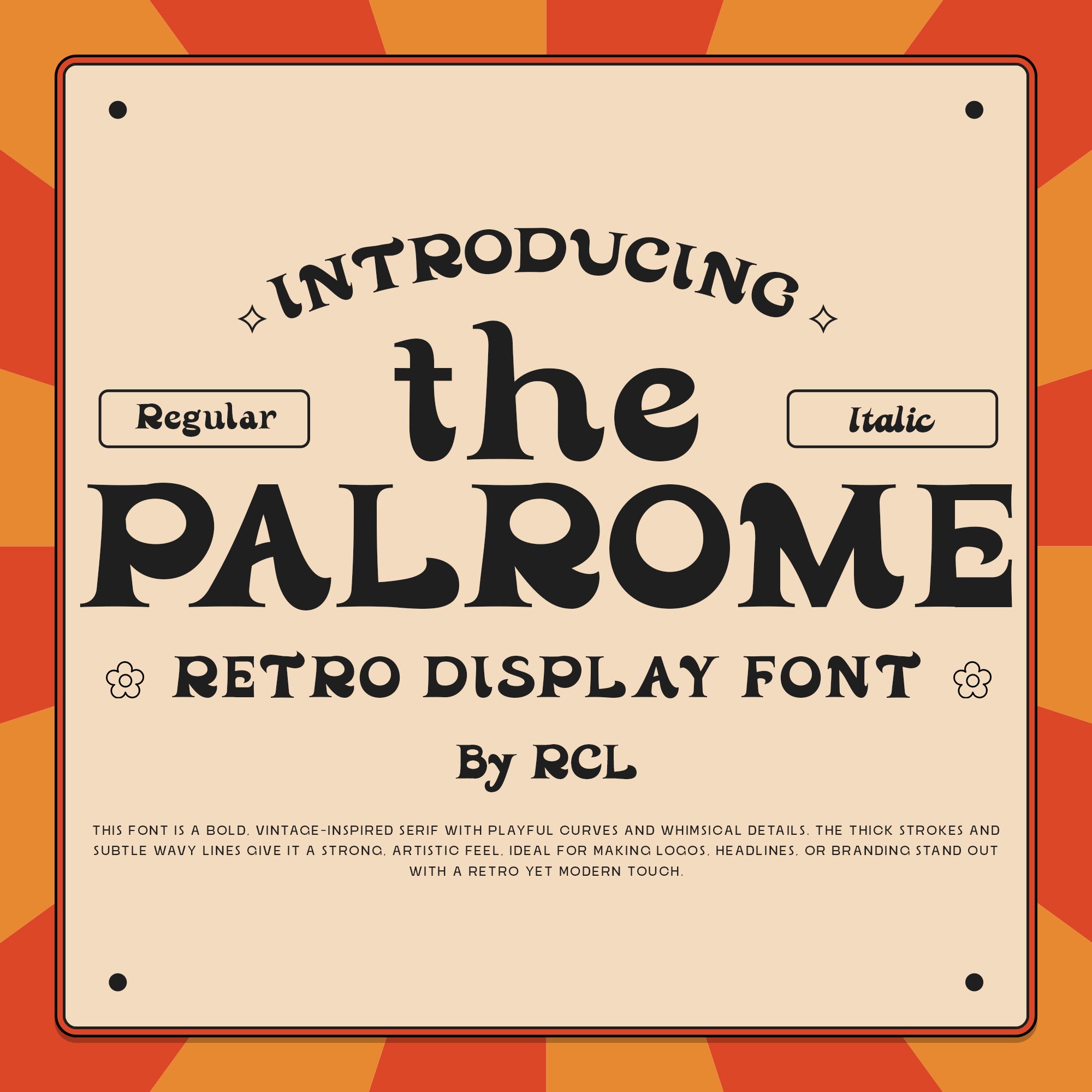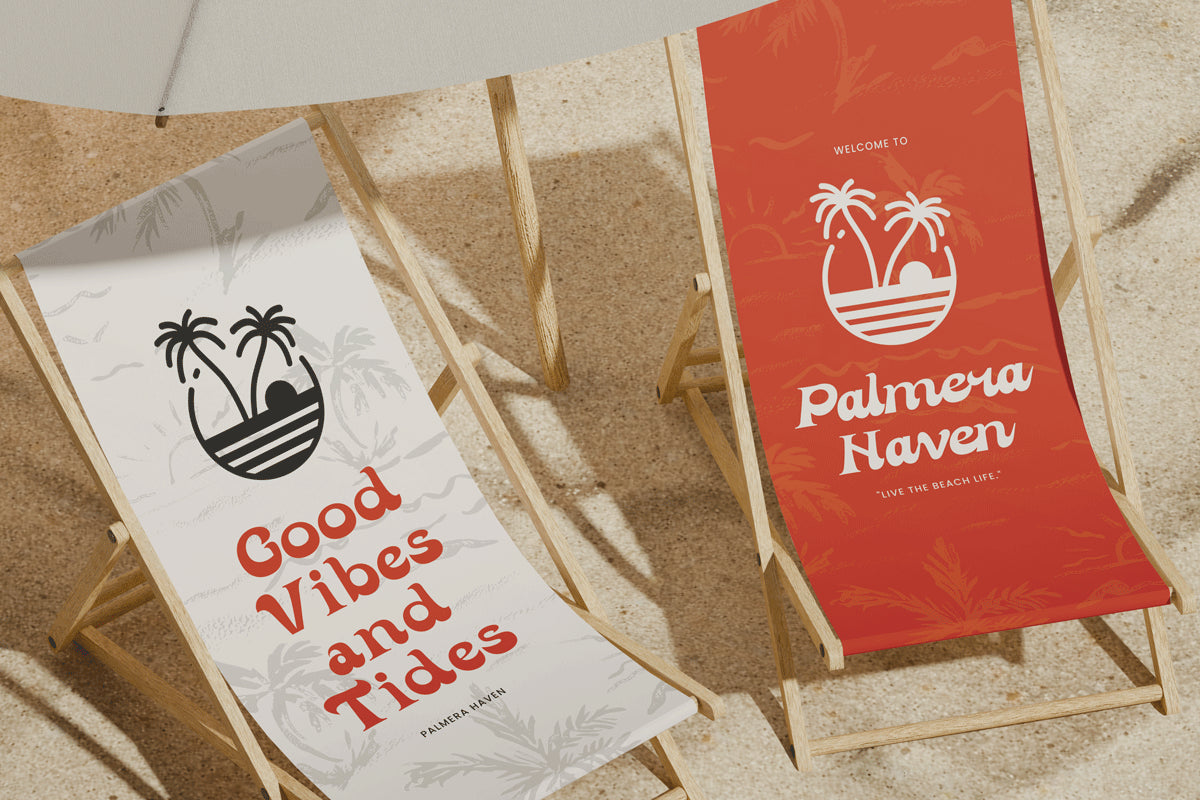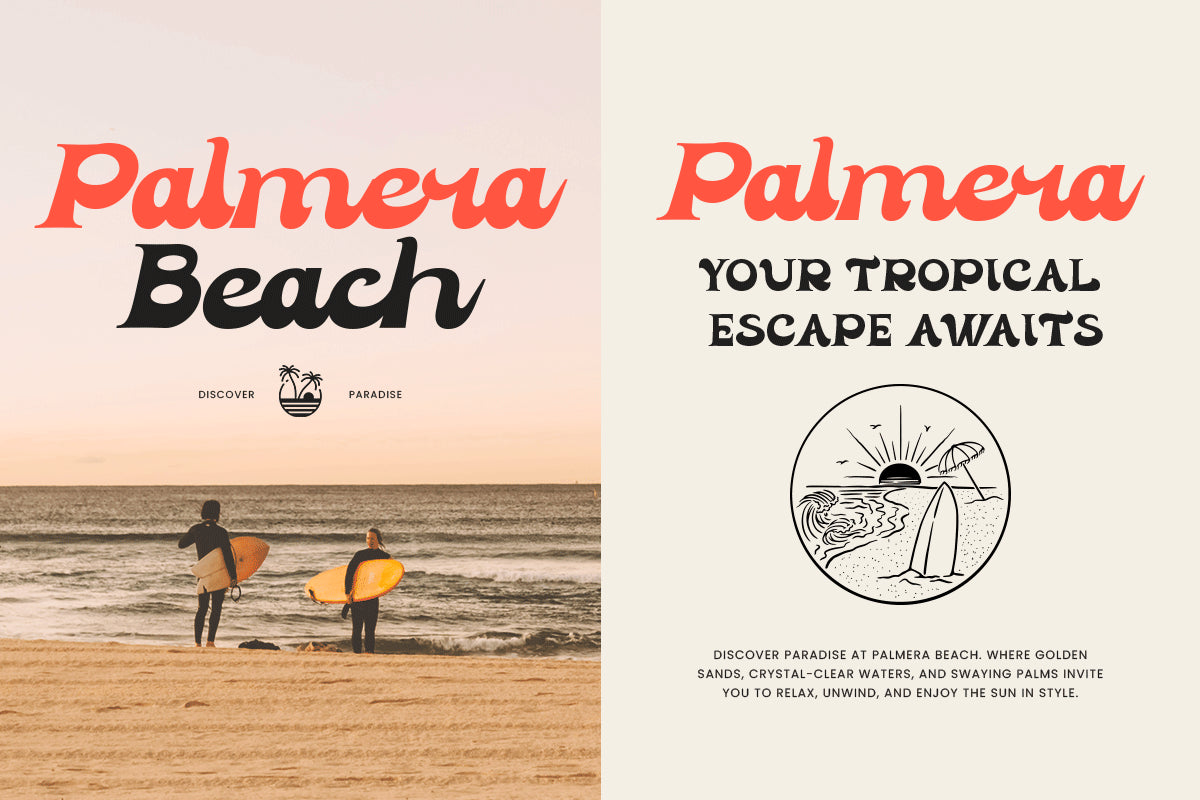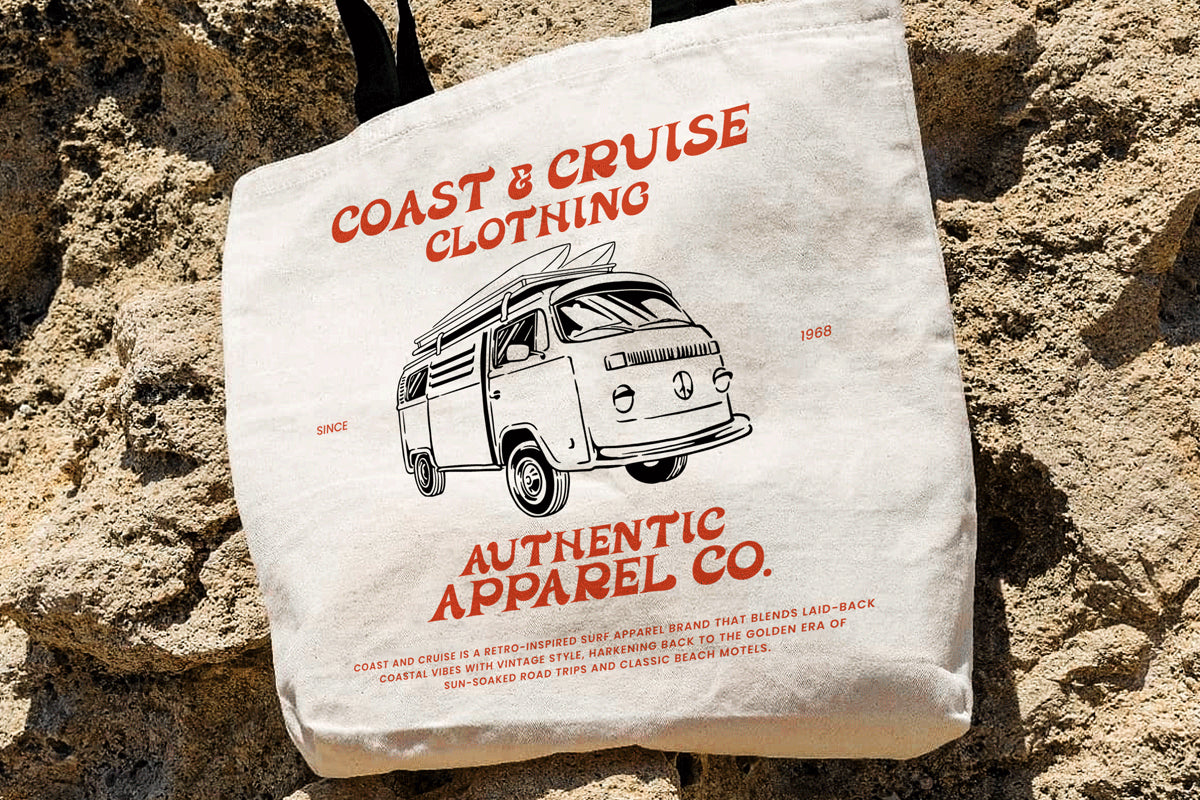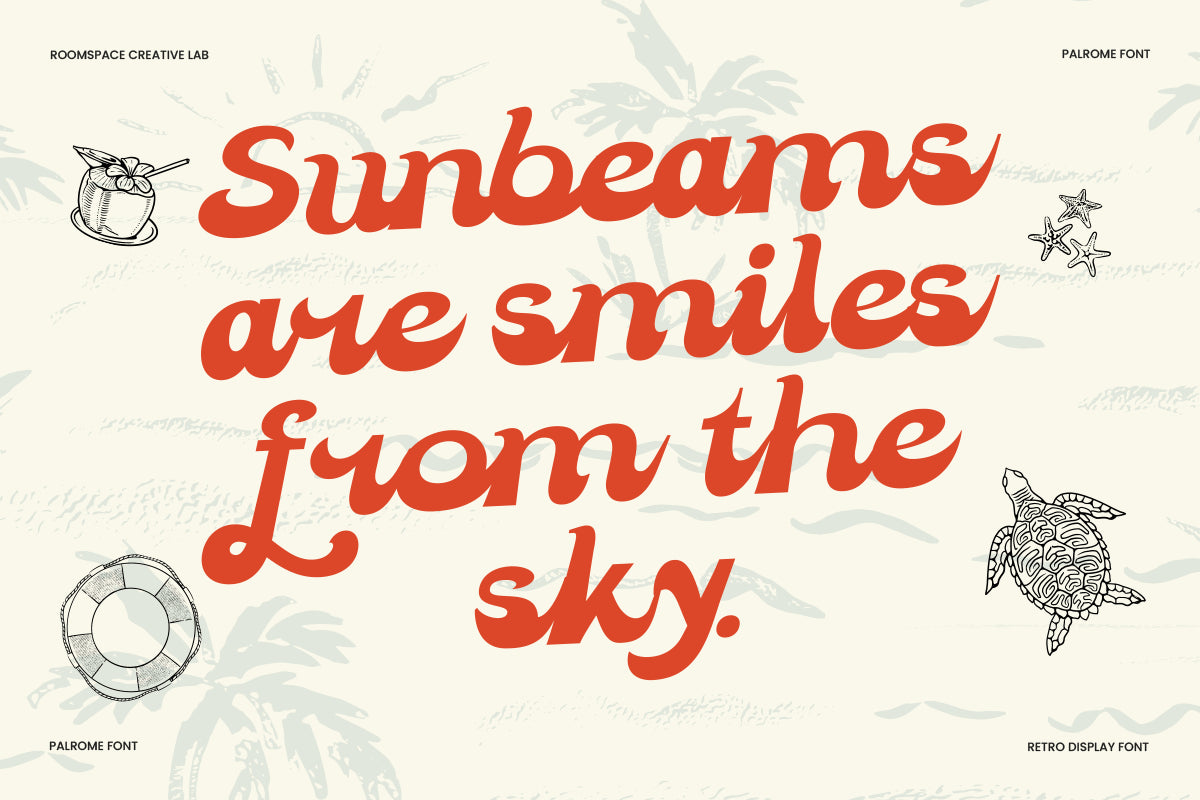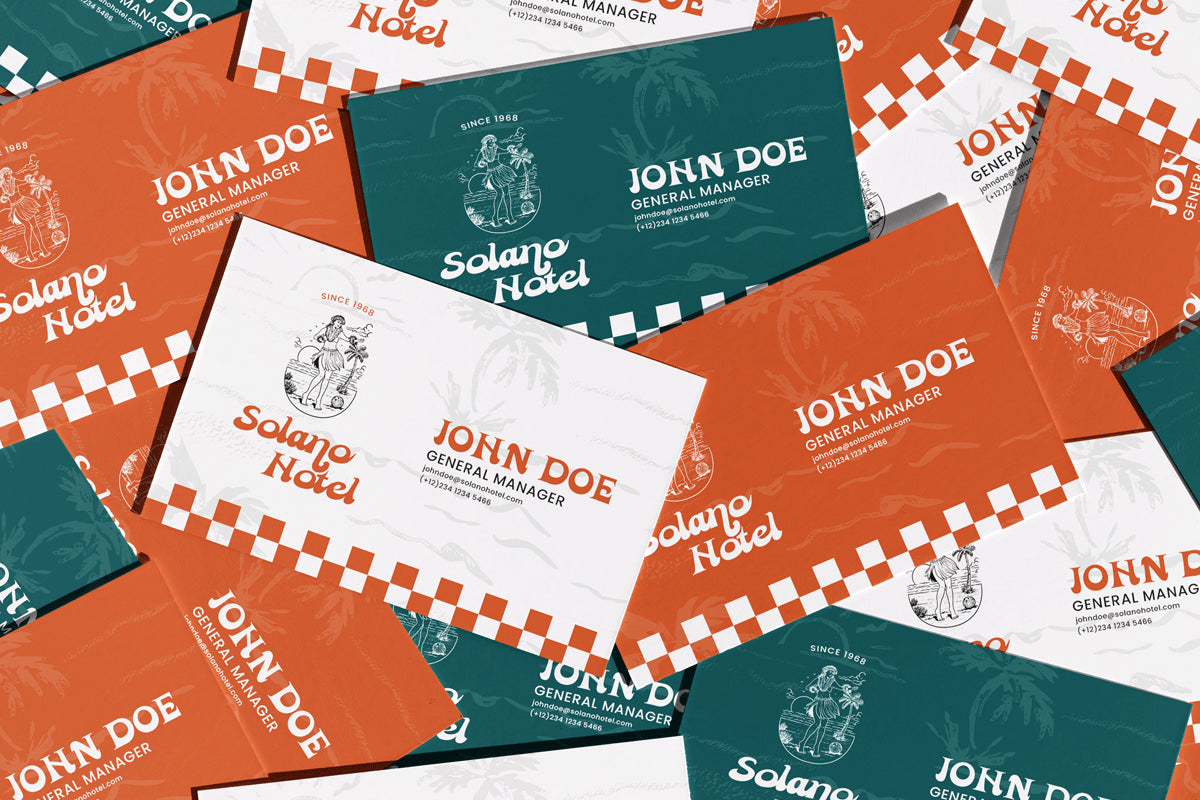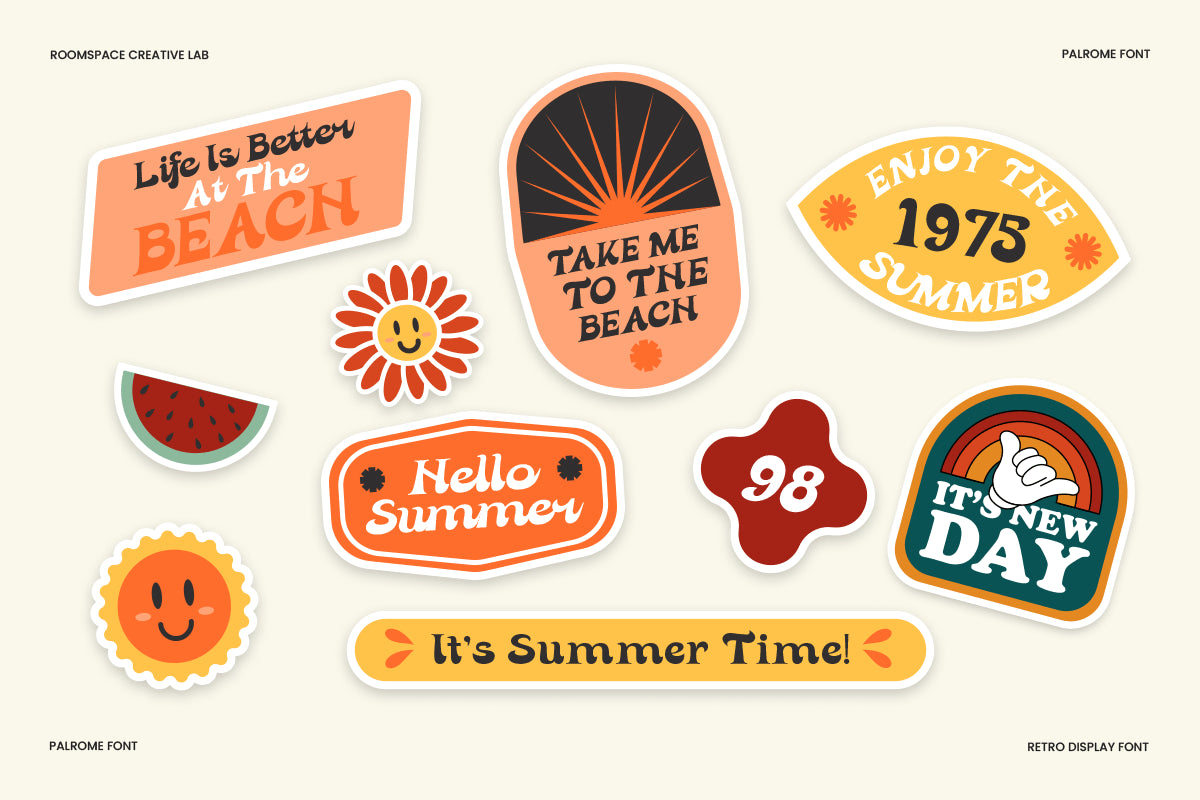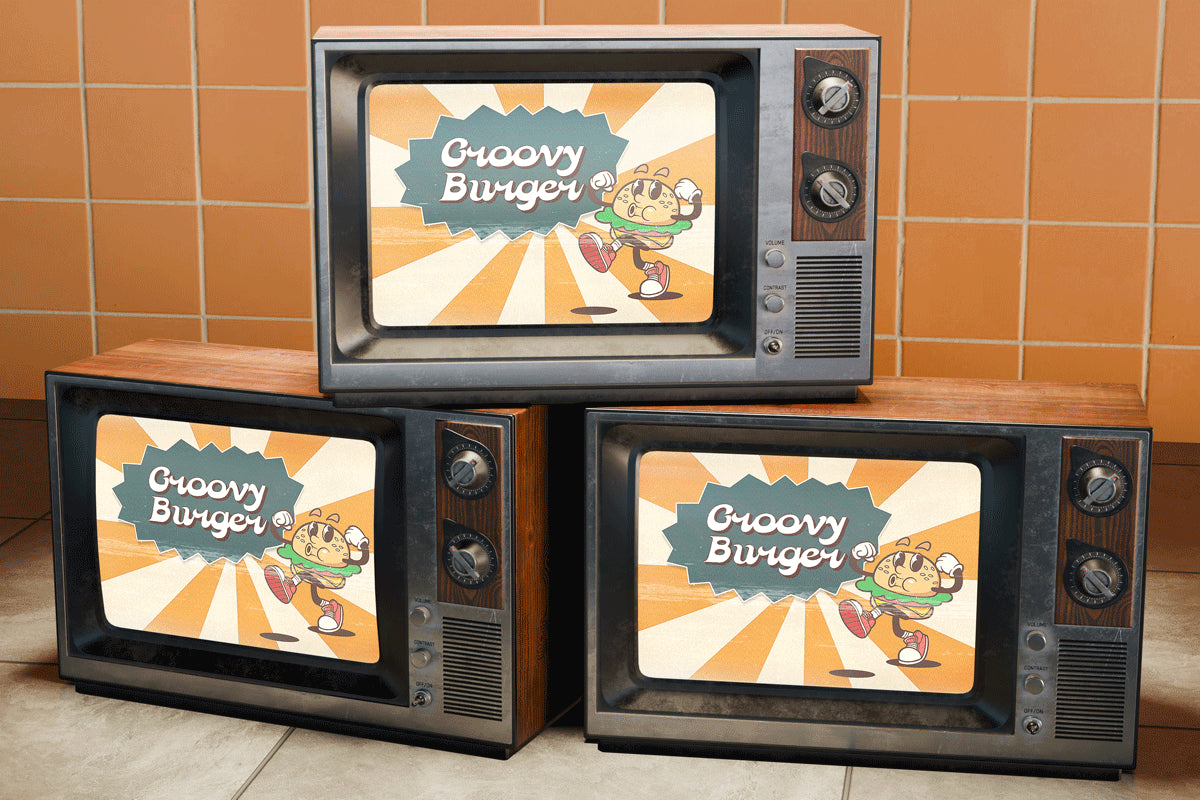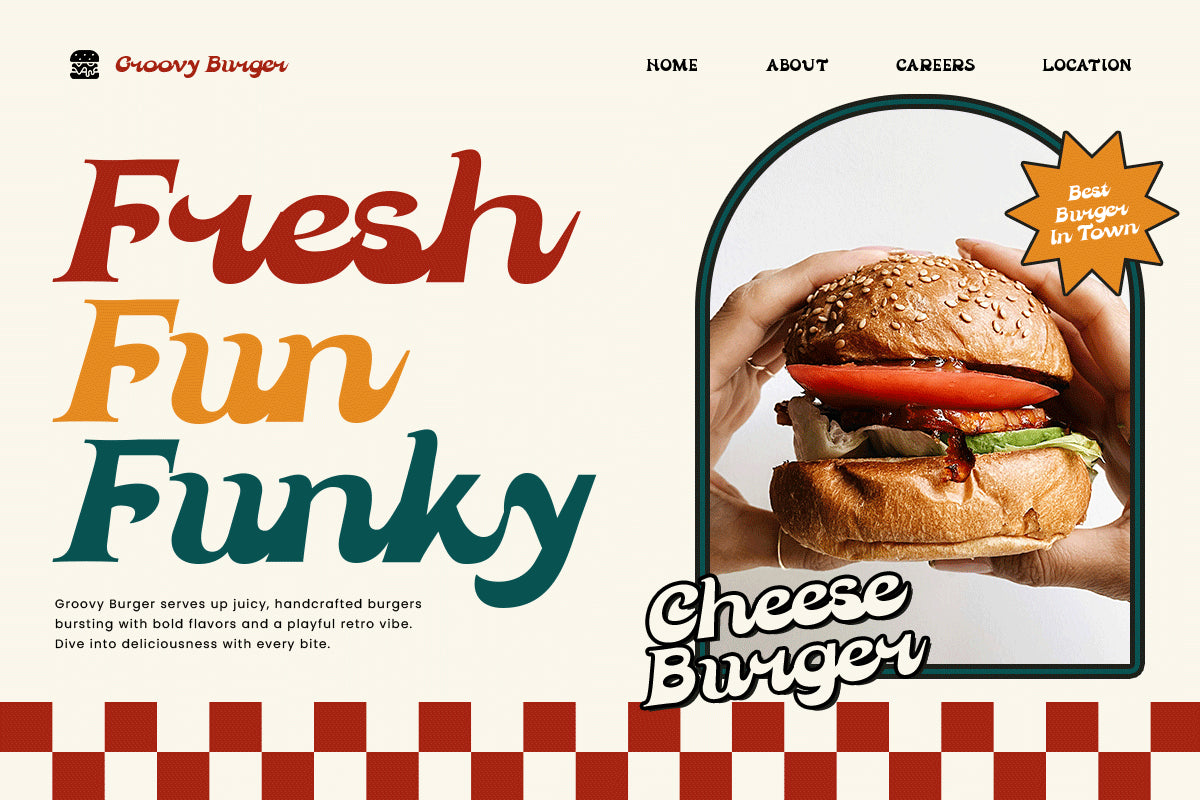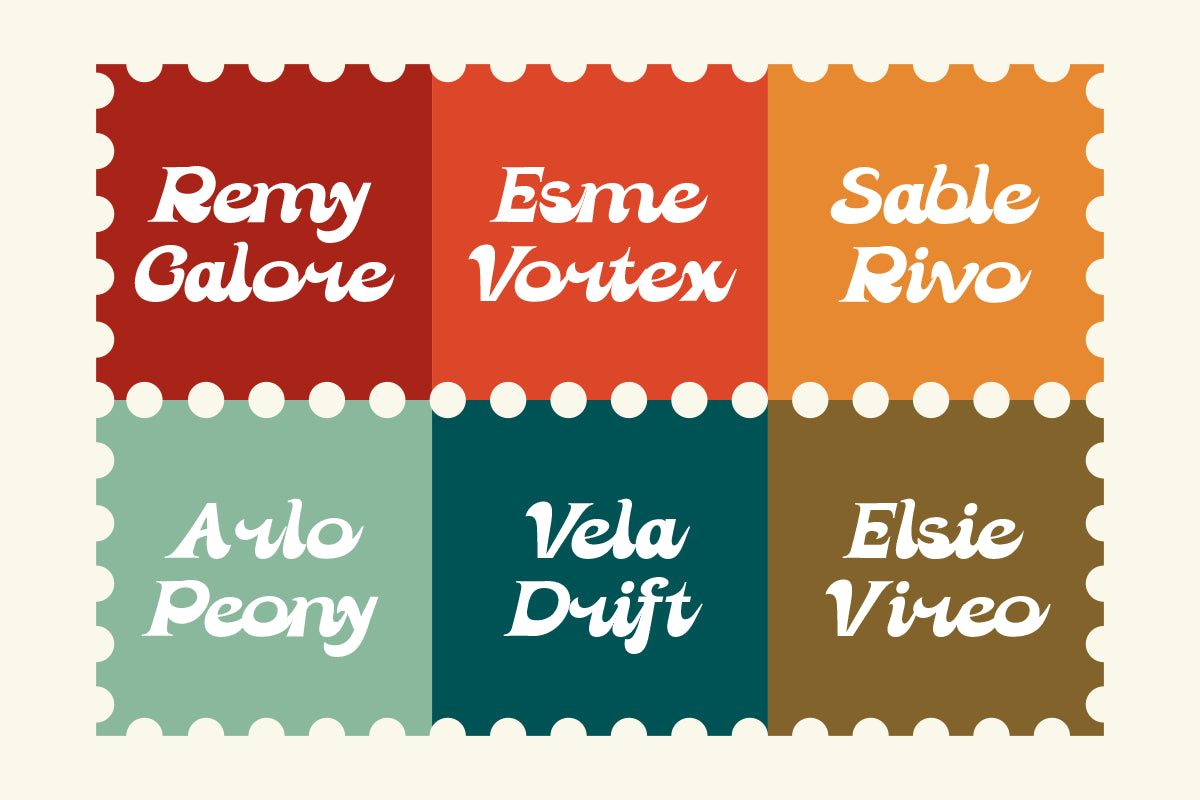
Palrome – Retro Groovy Display Font
Palrome is a bold retro display font inspired by the groovy vibes of the 70s and 80s. With playful curves and whimsical details, Palrome captures the perfect balance between nostalgic charm and modern aesthetics. It’s designed to make your designs stand out with a strong, artistic, and vintage-inspired personality. Palrome comes in two styles Regular and Italic giving designers flexibility for creative exploration. Each letter features thick strokes, subtle wave-like contours, and perfectly tuned kerning for professional readability. Whether used big and bold or in smaller decorative accents, Palrome maintains a smooth and stylish rhythm that enhances any layout with confidence. Perfect for logos, packaging, posters, headlines, café branding, editorial layouts, and retro-themed social media, Palrome brings nostalgic flair with a contemporary twist. Give your brand a bold and timeless look download Palrome today and make your next design radiate vintage elegance and groovy character.
Palrome is a bold retro display font inspired by the 70s and 80s, featuring playful curves and whimsical details. It includes Regular and Italic styles, offers OTF, TTF, and WOFF formats, supports uppercase and lowercase letters, numbers, punctuation, and multilingual characters, and is compatible with both PC and Mac for easy installation.